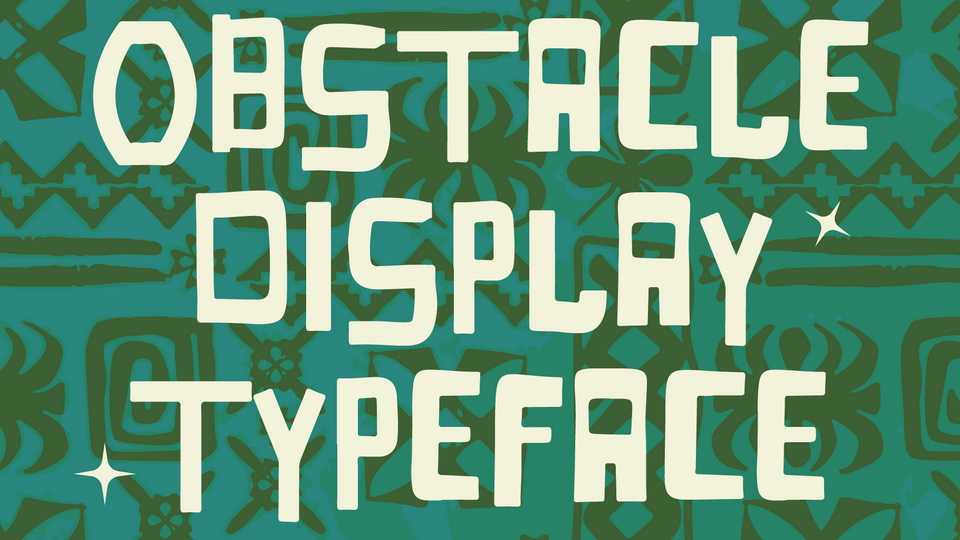
Download Obstacle font, a display typeface inspired by a vintage typeface from a hit animated television series from the ’90s, but heavily influenced by modern art style.